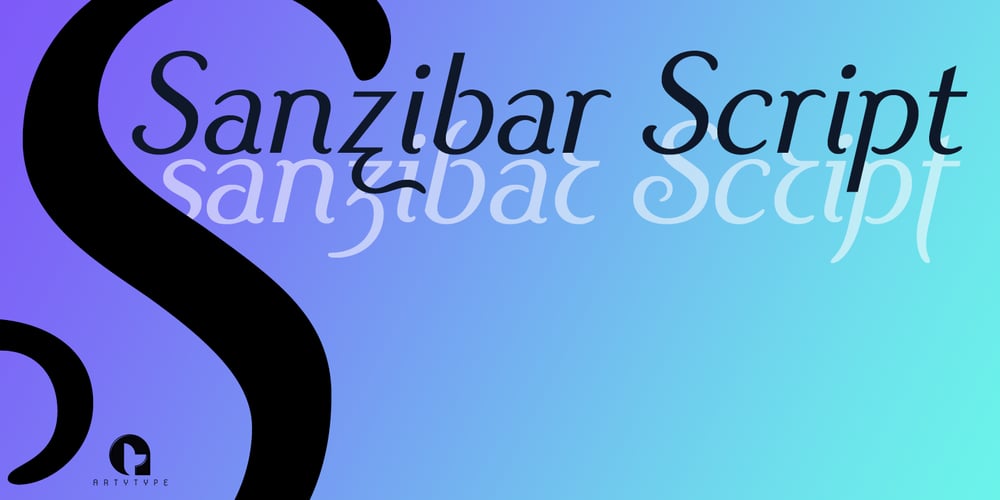
Sanzibar Script Font Family was designed by James Marsh and published by ArtyType. Sanzibar Script contains 1 styles and family package options. Sanzibar Script is a classically styled, single weight typeface, complete with alternate style settings. A multi-functional all-rounder, ideal for both body copy and headline use. The third offering in the Sanzibar range following the earlier standard & Schreef sets, the Script variant adds warmth and further versatility to the ever expanding ArtyType collection.